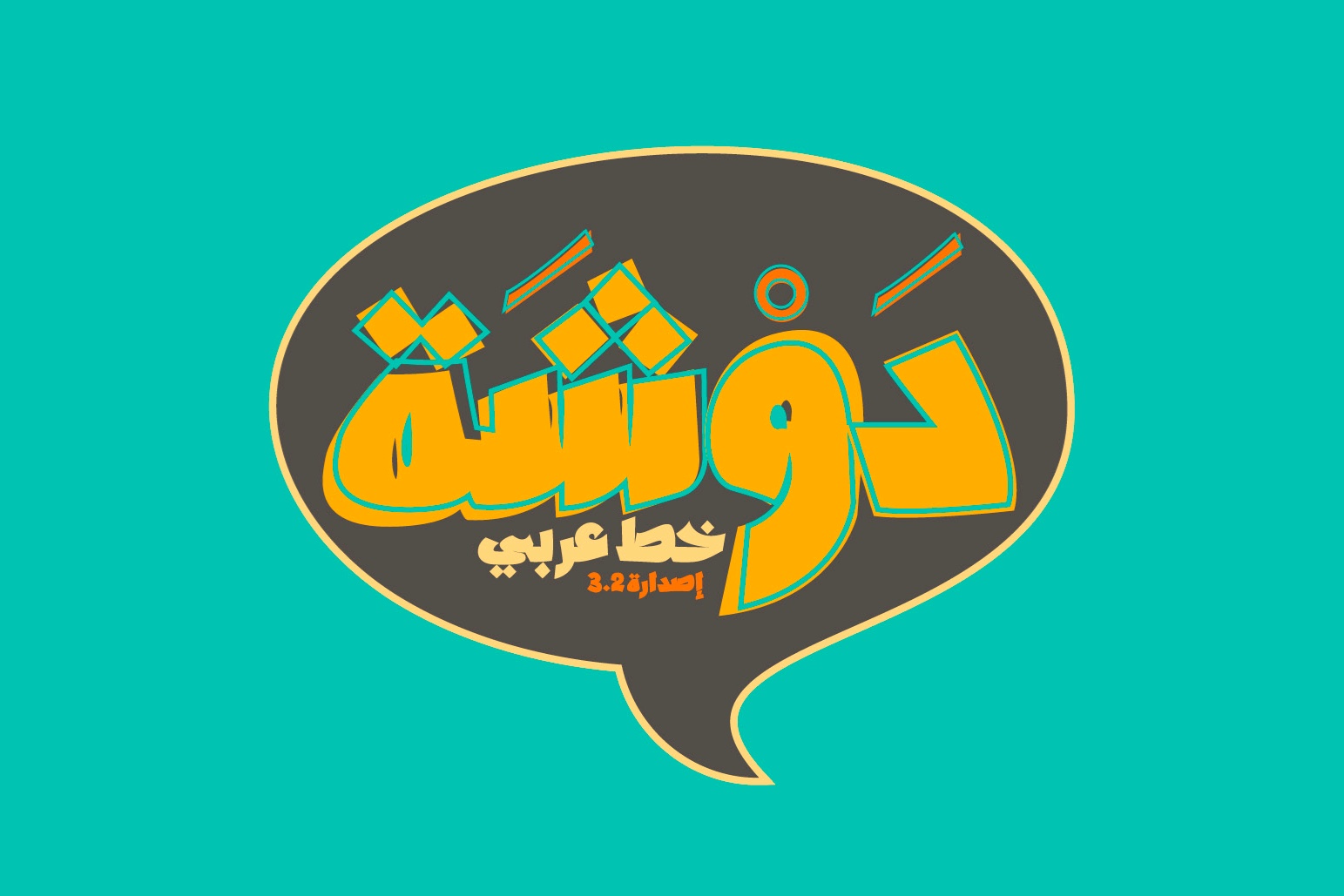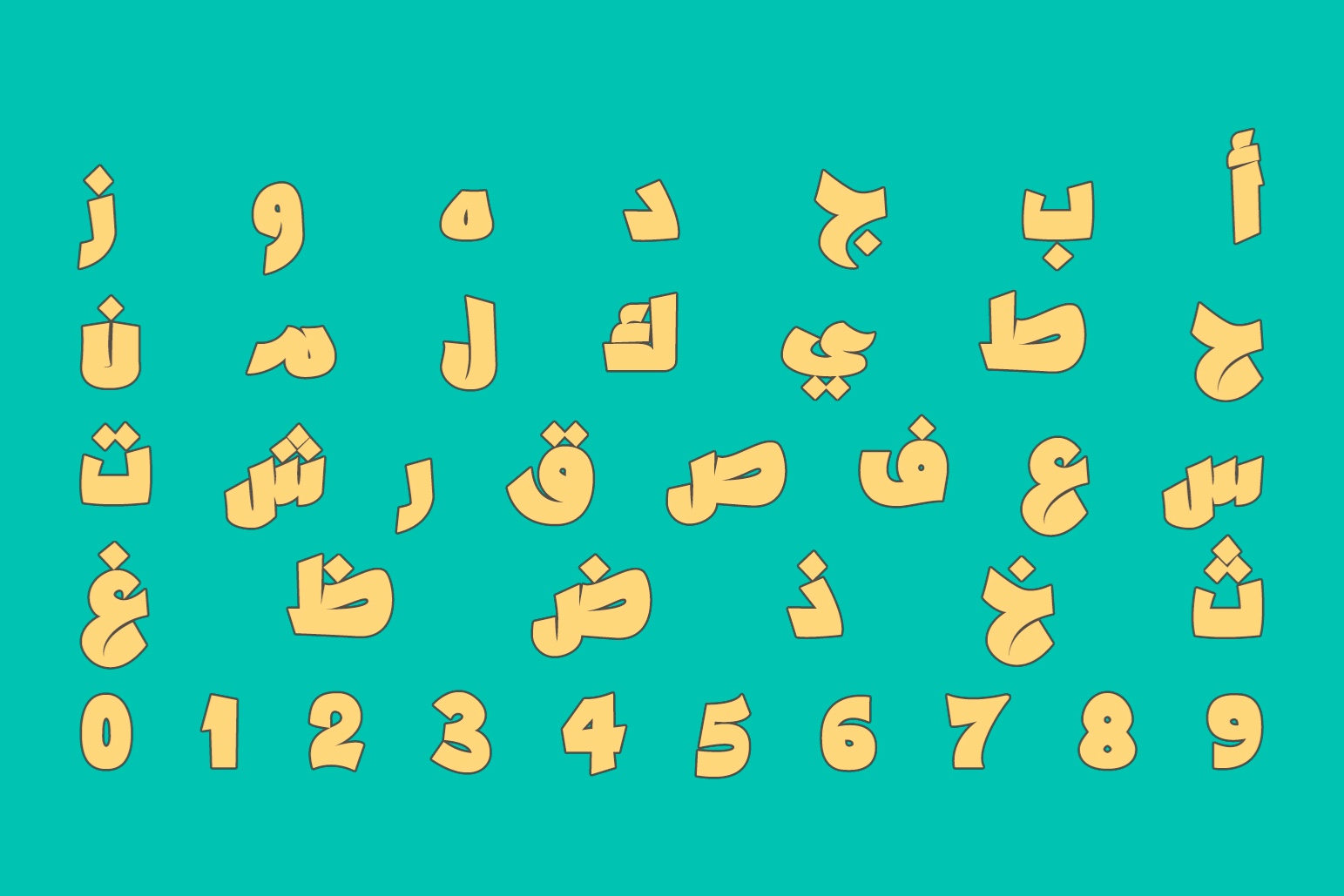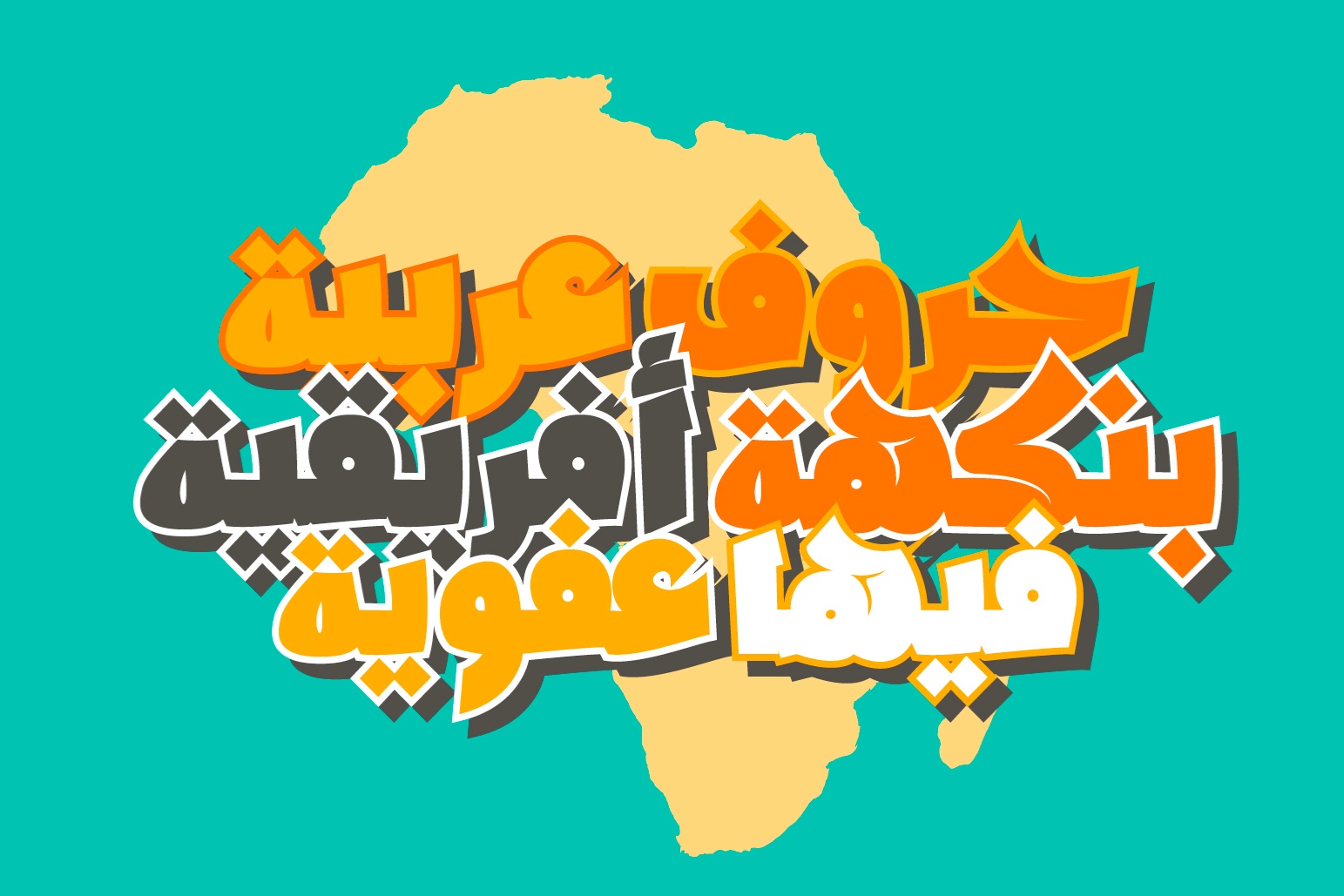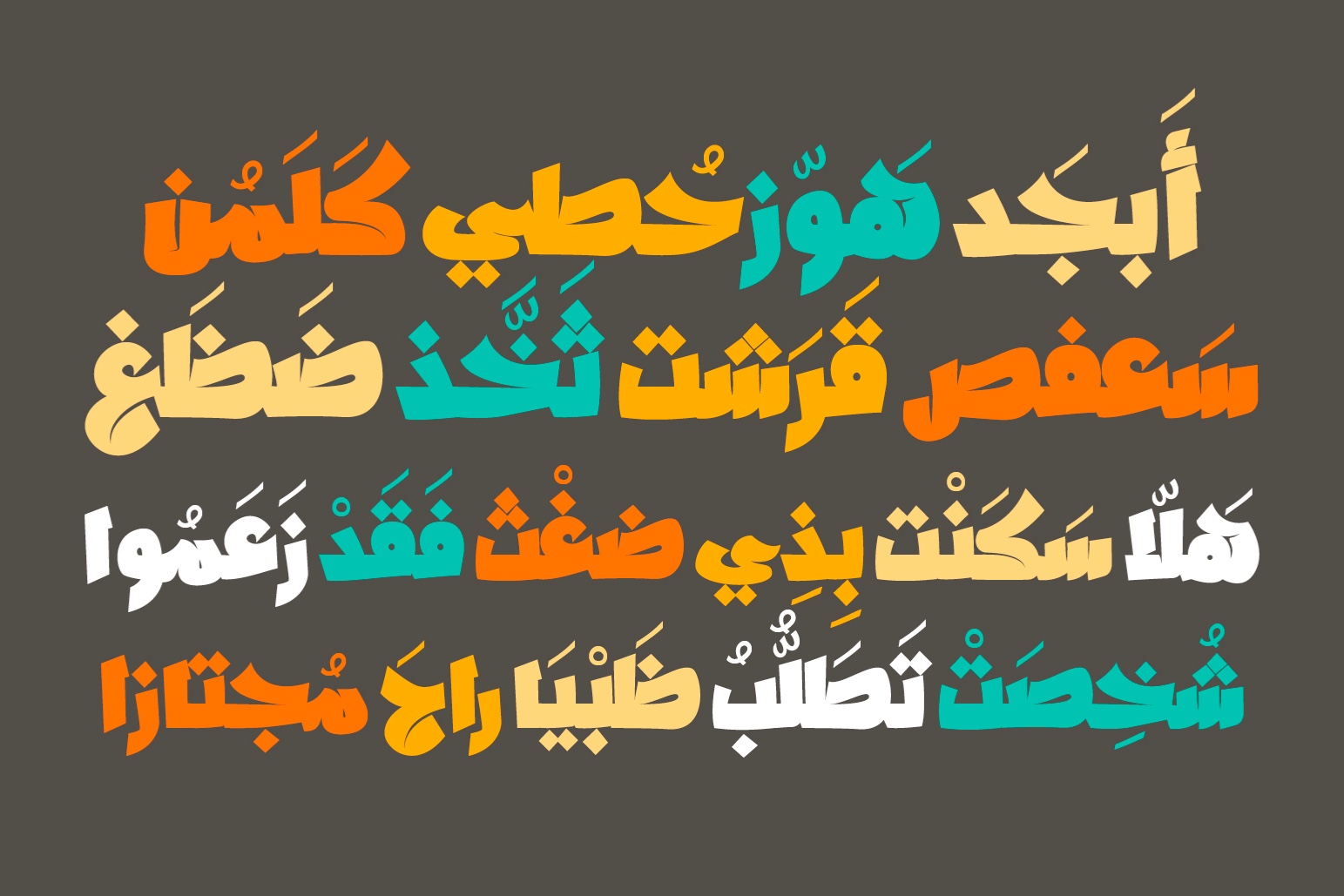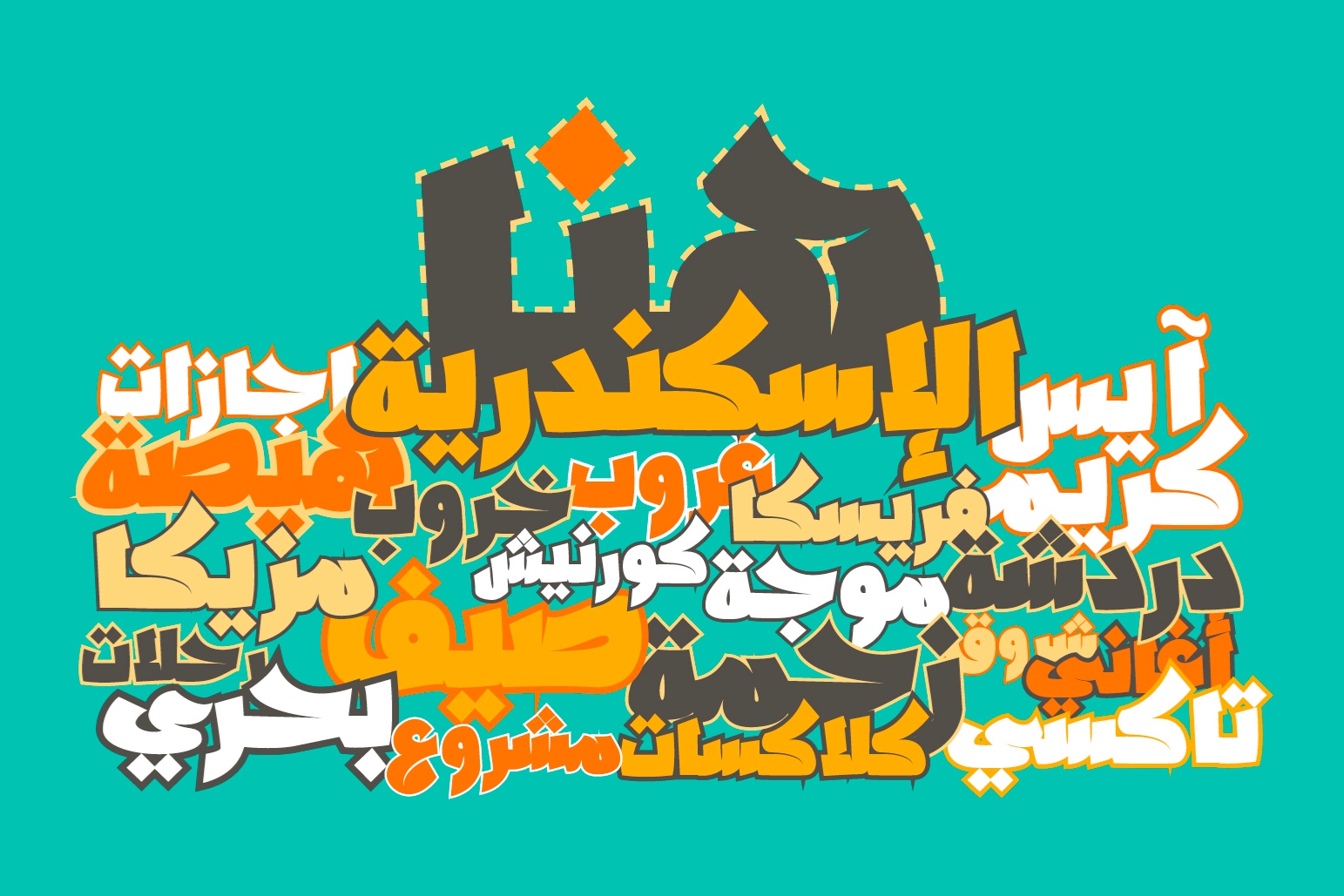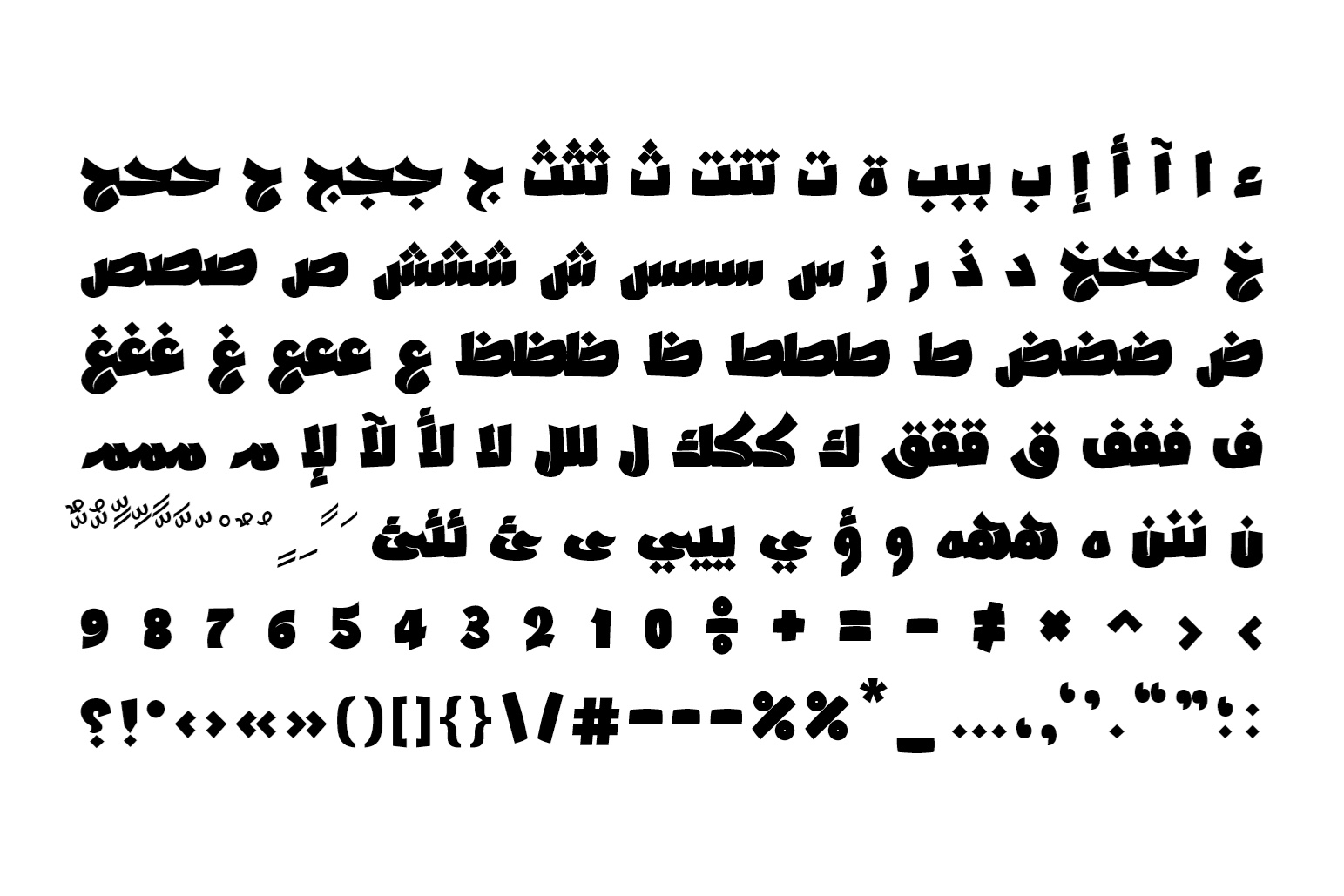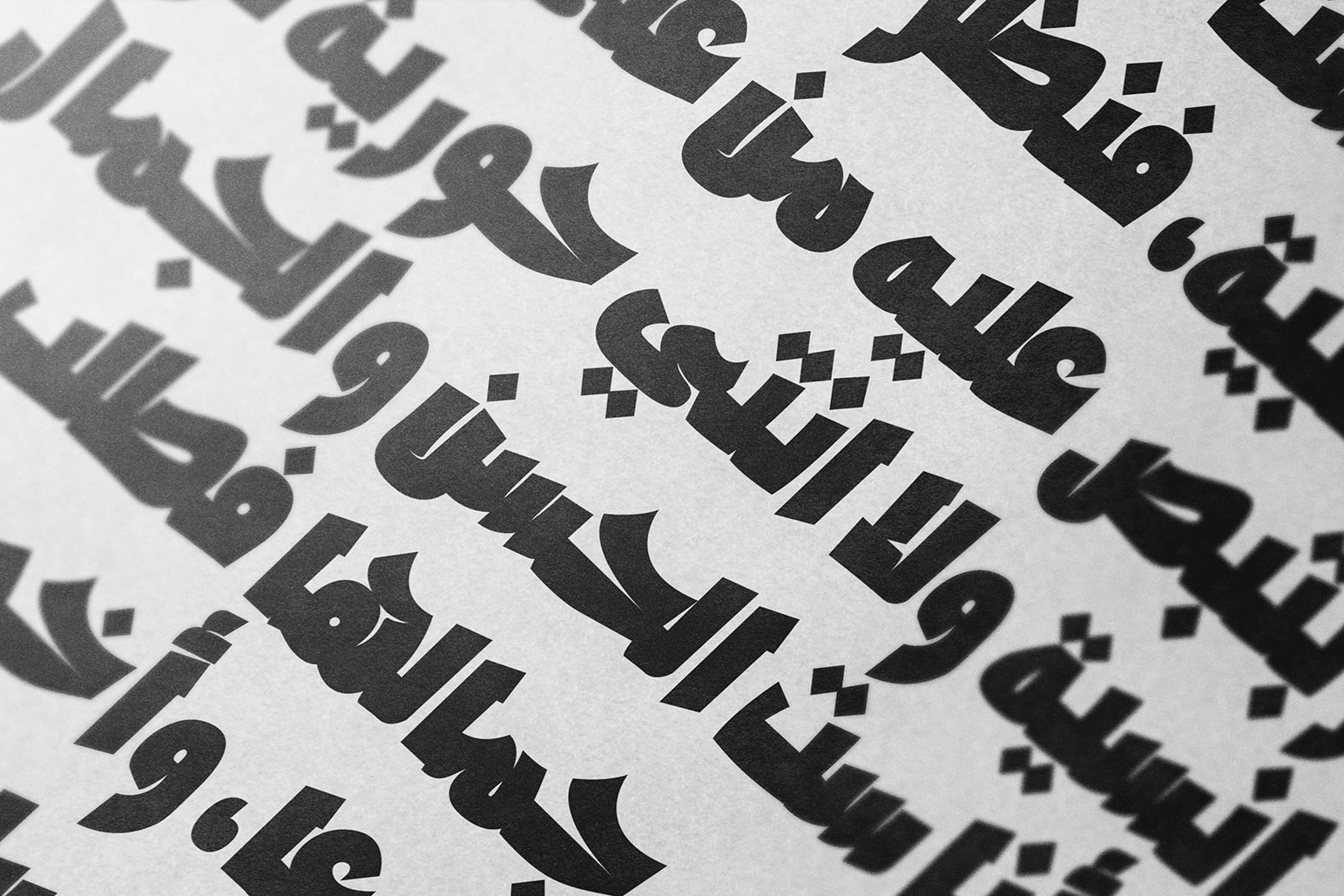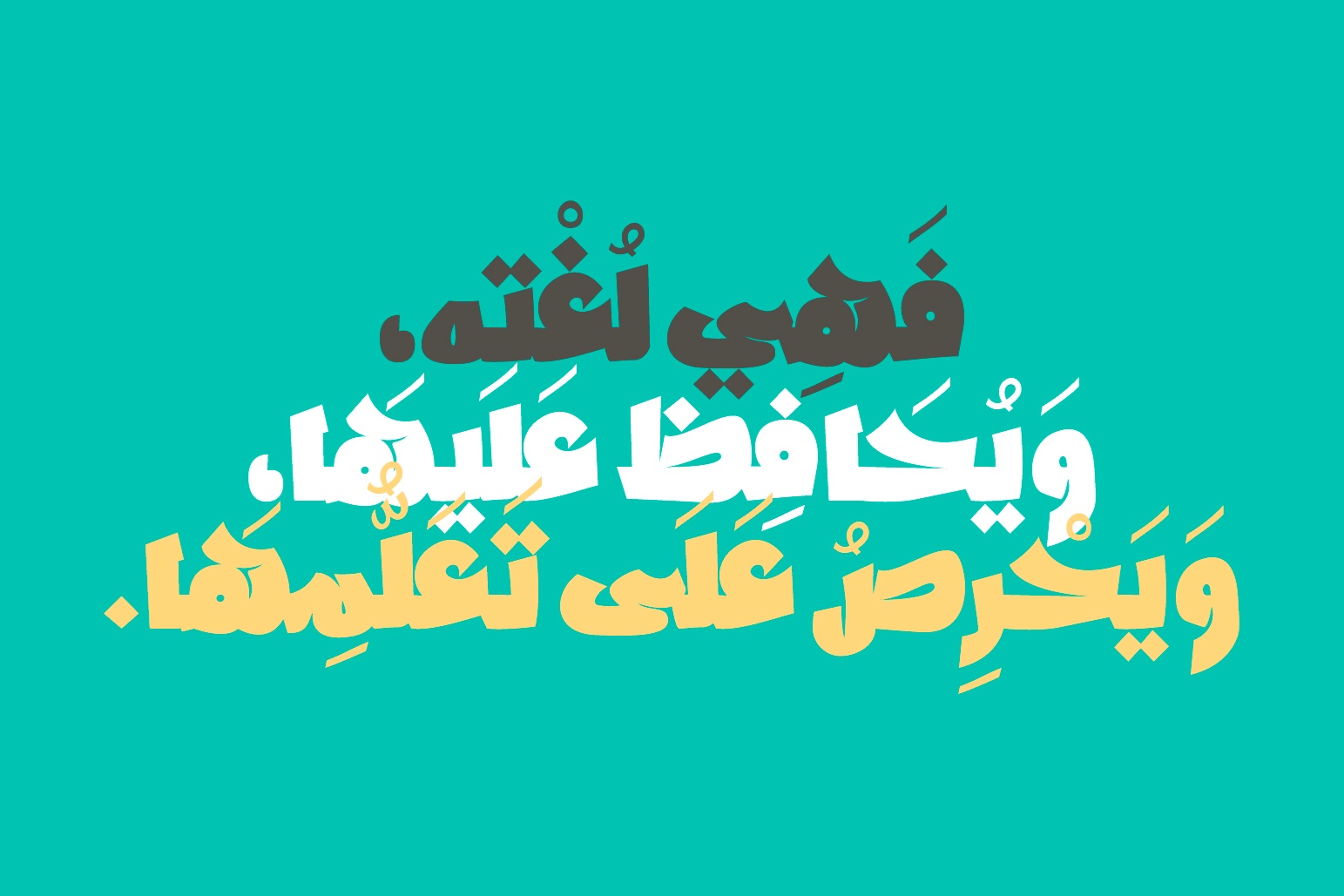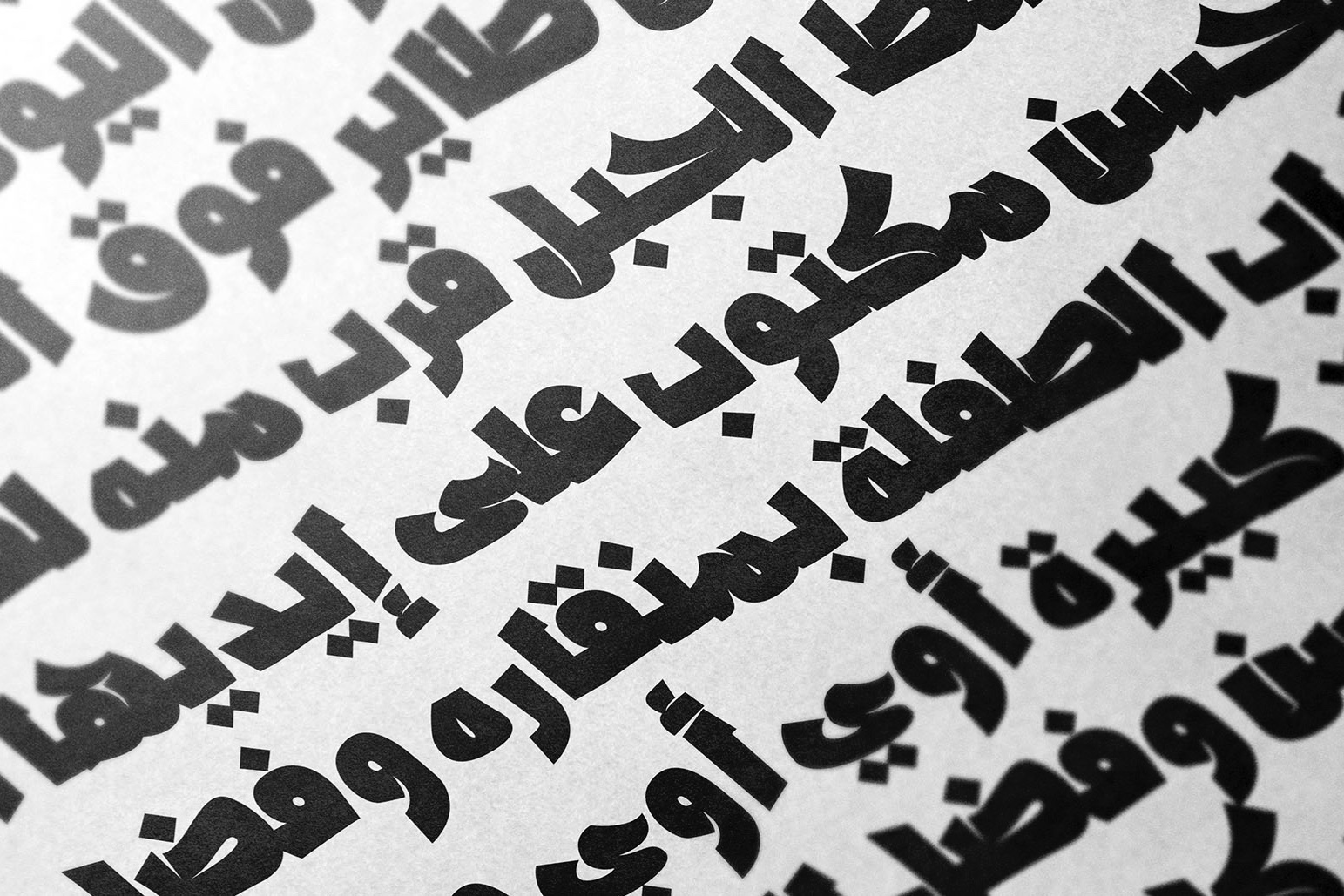
Dawshah (the Arabic for 'Making noise') is an Arabic display font specifically crafted for creative typography. Its bold and dynamic design allows it to convey messages with impact. This font is ideal for logotypes, wearables, event promotions, book covers, and various other creative endeavours. Dawshah is compatible with Windows, Mac and mobile applications.
Single weight